Nih Grant Font Size Guidelines: Optimize Readability for Biomedical Research
Discover optimal Nih grant font size standards for clear, compliant biomedical documentation and data presentation.
Selecting the right font size in NIH grant applications is crucial for clarity, compliance, and accessibility—ensuring your research communicates effectively to reviewers and stakeholders.
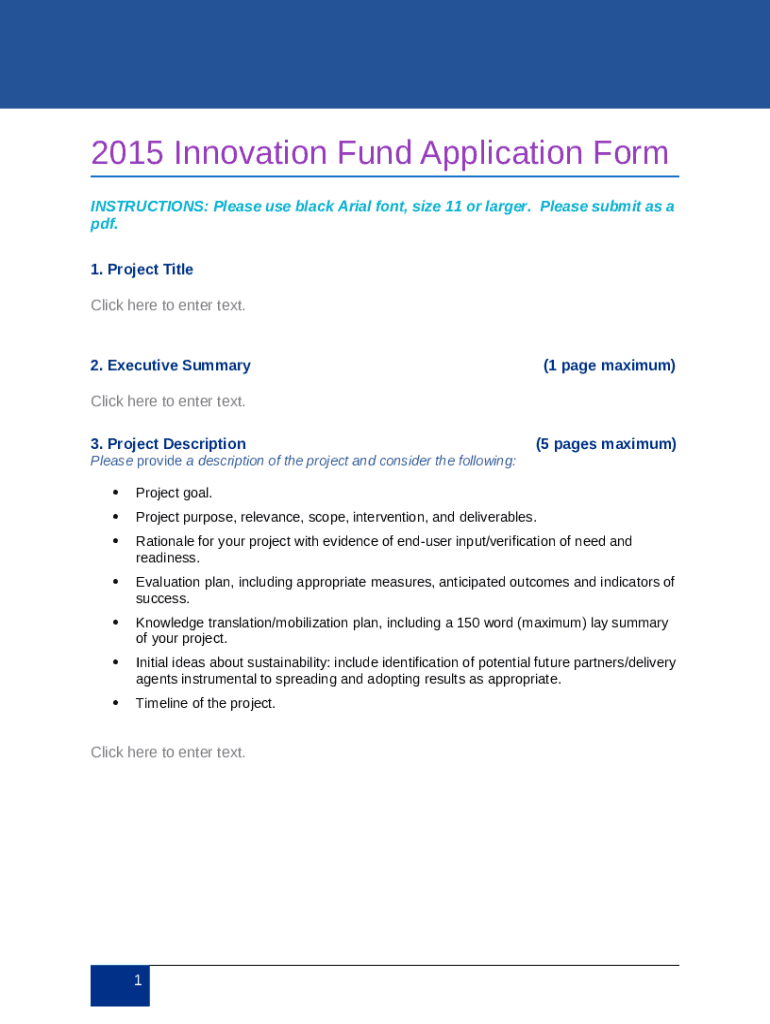
Nih Grant Font Size Recommendations
NIH mandates clear, legible typography with a primary font size of 11 or 12 point for main text, balancing readability and space efficiency. Headings typically use 14 to 16 point, with subheadings scaled proportionally to maintain hierarchy. These standards support accessibility and align with federal submission guidelines.
Why Font Size Matters in Grant Submissions
An appropriately sized font enhances comprehension, reduces reviewer fatigue, and reflects professionalism. Poor formatting may lead to misinterpretation or automatic rejection. Following NIH standards ensures your application meets expectations and stands out for quality, not presentation flaws.
Best Practices for Font Selection and Scaling
Use sans-serif fonts like Arial or Calibri at recommended sizes for maximum readability. Avoid overly decorative or condensed typefaces. Always test formatting across devices and printing methods. Include consistent spacing and line height to complement font size, improving overall document flow and usability.
Prioritizing the right Nih grant font size elevates your application’s professionalism and clarity. Apply these guidelines to ensure your biomedical research is not only compliant but also compelling—start refining your document today for optimal impact.